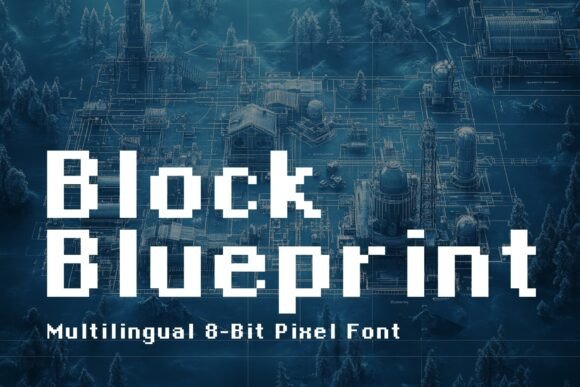
Introducing Block Blueprint: The Ultimate 8-Bit Pixel Font for Modern Designs
In the world of digital design, typography plays a crucial role in conveying messages, evoking emotions, and creating lasting impressions. For designers and crafters seeking a font that embodies precision, clarity, and a touch of nostalgia, Block Blueprint is here to revolutionize your projects. This clean, legible, and professional 8-bit pixel font is specifically designed to bring a modern twist to the classic pixelated aesthetic, making it perfect for digital designs, retro games, and any project that requires a crisp, retro vibe.
The Timeless Appeal of 8-Bit Style
The 8-bit style, originating from the early days of computing and gaming, has experienced a resurgence in popularity over the years. Its pixelated charm and retro feel have captivated audiences and inspired a new generation of designers. Block Blueprint taps into this nostalgia, offering a font that not only pays homage to the past but also meets the demands of modern design. With its well-defined characters and pixel-perfect rendering, this font ensures that your designs stand out with a unique, yet familiar aesthetic.
Designed for Clarity and Readability
One of the standout features of Block Blueprint is its exceptional readability. In an era where digital content is consumed across a multitude of devices and screen sizes, the ability of a font to remain clear and legible is paramount. Block Blueprint excels in this regard, with crisp, well-defined characters that maintain their integrity even at smaller sizes and lower resolutions. Whether you’re designing for a high-definition display or a vintage-style retro game, this font ensures that your message is conveyed with precision and clarity.
Versatility for Various Projects
Block Blueprint’s versatility is one of its most compelling attributes. This font is not just limited to digital designs and retro games; it’s also perfectly suited for a wide range of projects that require a pixelated aesthetic. From tech-savvy startups looking for a modern, edgy look to indie game developers aiming for an authentic retro experience, Block Blueprint offers the flexibility and functionality needed to bring your vision to life.
Key Features of Block Blueprint
- Clean and Legible Design: Ensures maximum readability across various screen sizes and resolutions.
- Professional 8-Bit Pixel Style: Combines the timeless appeal of 8-bit style with modern functionality.
- Pixel-Perfect Rendering: Ideal for digital designs, retro games, and projects requiring a pixelated aesthetic.
- Crispy, Well-Defined Characters: Maintains clarity and precision, even at smaller sizes.
- Versatile and Functional: Suitable for a wide range of projects, from digital interfaces to print materials.
Block Blueprint is more than just a font; it’s a design solution that bridges the gap between nostalgia and modernity. Its clean, legible, and professional 8-bit pixel style makes it an invaluable asset for designers and crafters looking to add a touch of precision and clarity to their projects. With Block Blueprint, you can create designs that are not only visually appealing but also highly functional across various platforms and devices. Embrace the fusion of retro charm and modern functionality, and elevate your designs to new heights with Block Blueprint.